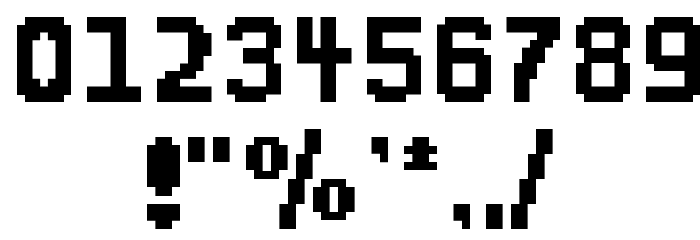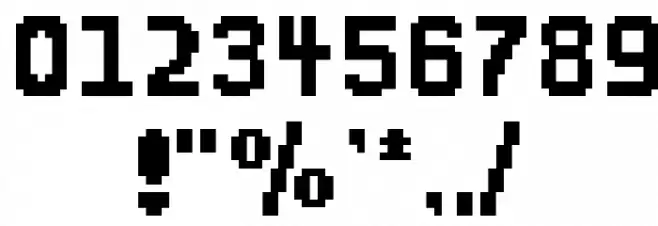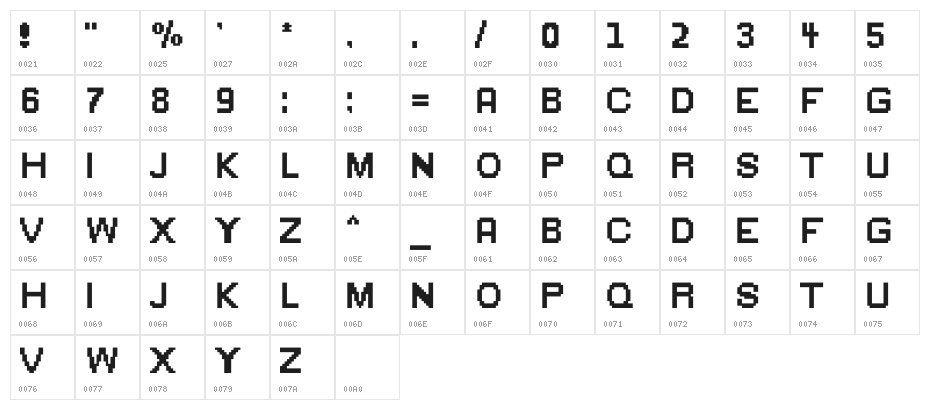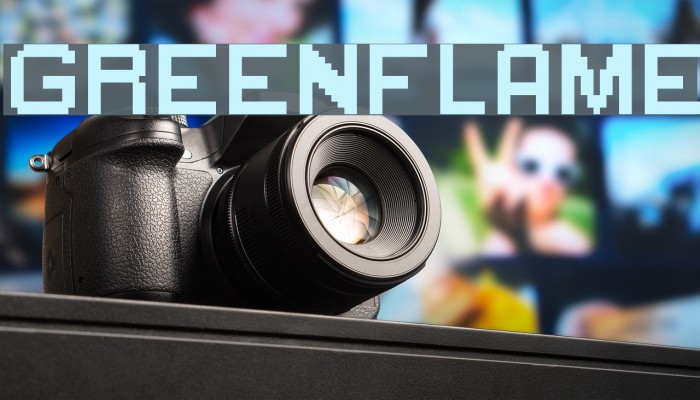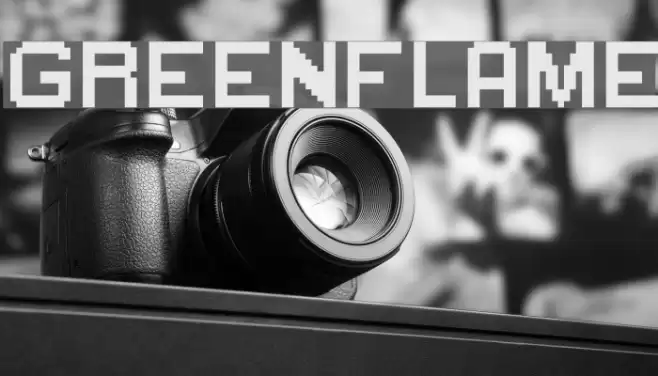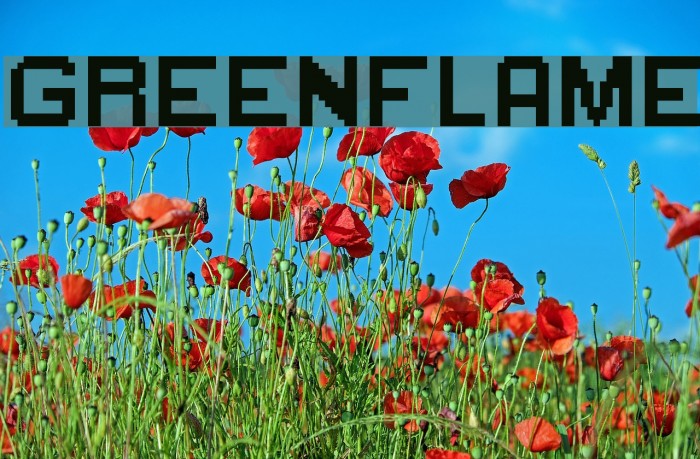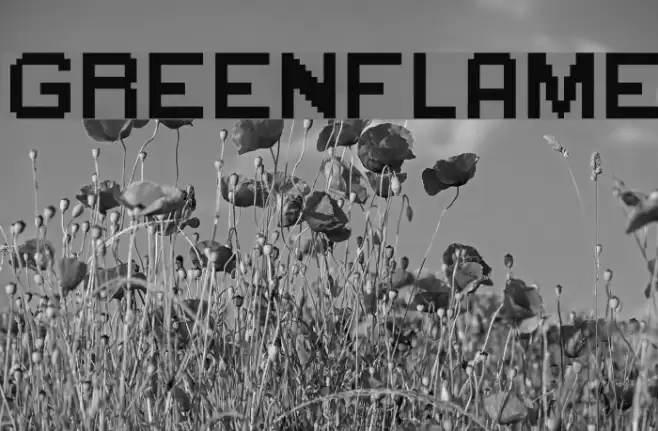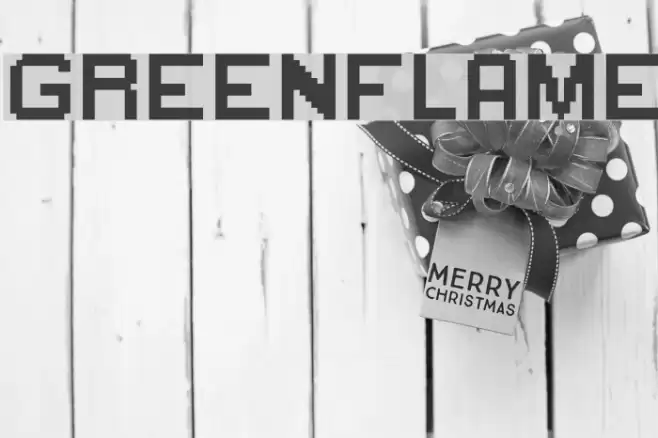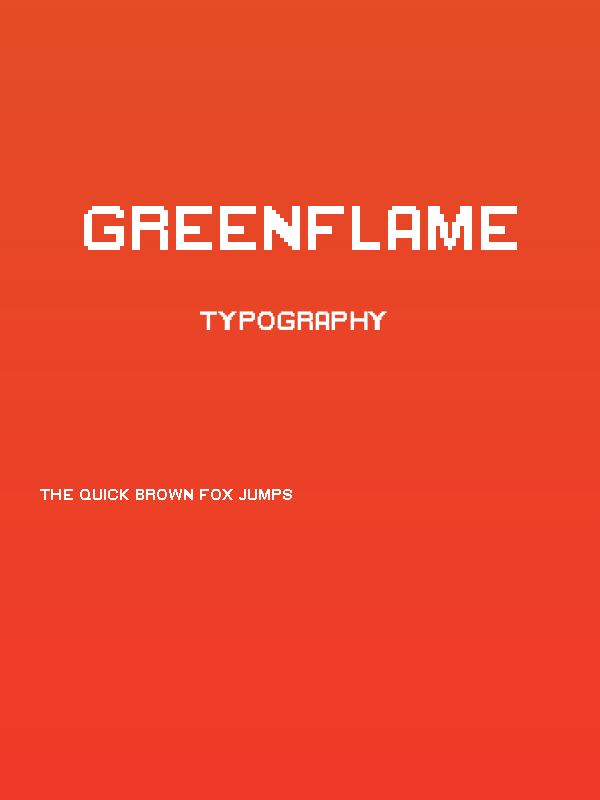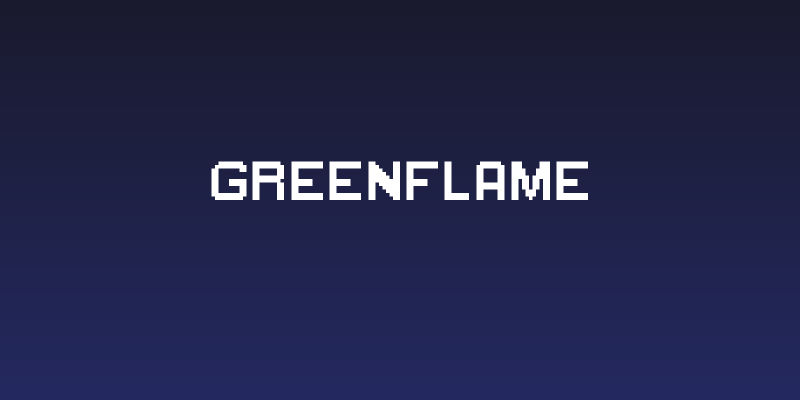
GreenFlame Font
GreenFlame Description
This font features a bold, pixelated style reminiscent of early digital displays and video game graphics. The characters are constructed with a blocky, grid-like appearance, giving them a retro, 8-bit aesthetic. The uppercase and lowercase letters share a similar structure, maintaining consistency across the alphabet. The numerals and special characters are designed to match the overall pixelated theme, ensuring uniformity. This font's distinct style makes it ideal for projects that aim to evoke nostalgia or a vintage digital feel.
| Use Case | Logos, Headlines, Digital Art |
| Proposed Projects | Ideal for retro video game designs, digital art projects, and nostalgic branding. |